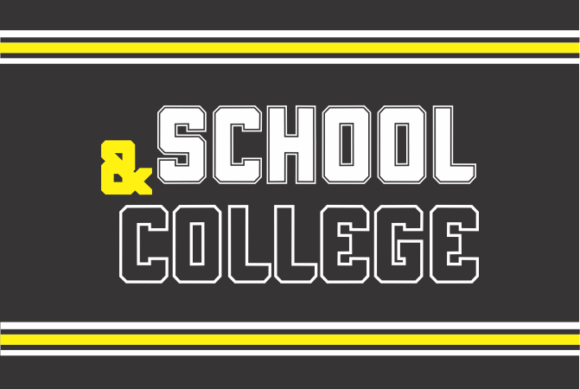
Looking for the best tattoo font for quotes? Look no further than School & College Font, the latest addition to our display font family. Created by Jaime Rangel Castro, this font is the perfect choice for anyone who wants a cool, bold, and fierce-looking design.
School & College Font is more than just a pretty face, though. It's also incredibly versatile and can be used in a variety of designs related to sports, speed, and power. Whether you're designing a team logo, a racing poster, or a motivational quote, School & College Font will make your words pop and stand out.
What makes School & College Font so special? For starters, its bold and striking design is sure to catch the eye and leave a lasting impression. But it's not just about looks - this font is also incredibly easy to read and perfect for conveying a message quickly and clearly.